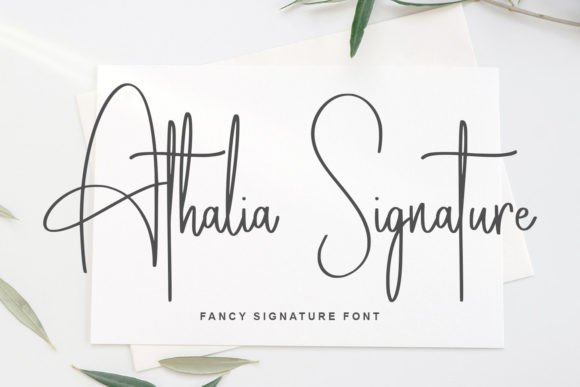
Athalia Signature Font: Elevate Your Brand with a Natural and Elegant Touch
In the world of typography, a signature font can make all the difference in creating a lasting impression. Introducing Athalia, a beautiful natural signature font that is perfect for adding a touch of elegance to your brand, designs, and marketing materials. In this article, we’ll explore the features and benefits of Athalia, and how it can be used to elevate your brand’s visual identity.
What is Athalia Signature Font?
Athalia is a carefully crafted signature font that exudes a sense of natural elegance. Its unique and flowing design makes it perfect for a wide range of applications, from branding and logos to quotes, t-shirt designs, tote bag designs, cards, banners, and social media graphics. Athalia’s versatility and charm make it an excellent choice for designers and businesses looking to add a personal touch to their visual identity.
Key Features of Athalia Signature Font
- Natural and Elegant Design: Athalia’s design is inspired by the beauty of nature, making it perfect for brands that want to convey a sense of earthiness and sophistication.
- Highly Versatile: Athalia can be used for a wide range of applications, from digital and print materials to merchandise and packaging.
- Easy to Read: Despite its elegant design, Athalia remains highly legible, making it perfect for body text and captions.
- Unique Character Set: Athalia includes a unique character set, complete with ligatures, alternates, and ornaments, allowing you to add a touch of personality to your designs.
Benefits of Using Athalia Signature Font
Using Athalia signature font can bring numerous benefits to your brand and designs. Here are just a few:
- Stand Out from the Crowd: Athalia’s unique design will help your brand stand out from the competition and create a lasting impression.
- Convey a Natural and Earthy Image: Athalia’s natural design makes it perfect for brands that want to convey a sense of earthiness and sustainability.
- Elevate Your Brand’s Visual Identity: Athalia’s elegant design will add a touch of sophistication to your brand’s visual identity, making it perfect for high-end brands and luxury products.
- Perfect for Digital and Print Materials: Athalia can be used for both digital and print materials, making it a versatile font that can be used across various platforms.
Use Cases for Athalia Signature Font
Athalia signature font is perfect for a wide range of applications, including:
- Branding and Logos: Use Athalia to create a unique and memorable logo that reflects your brand’s personality.
- Quotes and Typography: Athalia’s elegant design makes it perfect for quotes, typography, and other text-based designs.
- T-Shirt Designs: Add a touch of elegance to your t-shirt designs with Athalia’s unique and flowing design.
- Tote Bag Designs: Use Athalia to create beautiful and functional tote bag designs that are perfect for everyday use.
- Cards and Stationery: Athalia’s natural design makes it perfect for cards, stationery, and other paper products.
- Banners and Signage: Use Athalia to create eye-catching banners and signage that will grab attention.
- Social Media Graphics: Add a touch of elegance to your social media graphics with Athalia’s unique and flowing design.
Tips for Using Athalia Signature Font
Here are some tips for getting the most out of Athalia signature font:
- Experiment with Ligatures and Alternates: Athalia includes a range of ligatures and alternates that can add a touch of personality to your designs.
- Use it with Other Fonts: Athalia pairs well with a range of fonts, so don’t be afraid to experiment with different combinations.
- Adjust the Size and Color: Experiment with different sizes and colors to find the perfect combination for your design.
- Use it for Body Text: Despite its elegant design, Athalia remains highly legible, making it perfect for body text and captions.
Athalia signature font is a beautiful and versatile font that is perfect for adding a touch of elegance to your brand, designs, and marketing materials. Its natural and flowing design makes it perfect for a wide range of applications, from branding and logos to quotes, t-shirt designs, tote bag designs, cards, banners, and social media graphics. With its unique character set, highly legible design, and versatility, Athalia is an excellent choice for designers and businesses looking to elevate their brand’s visual identity.